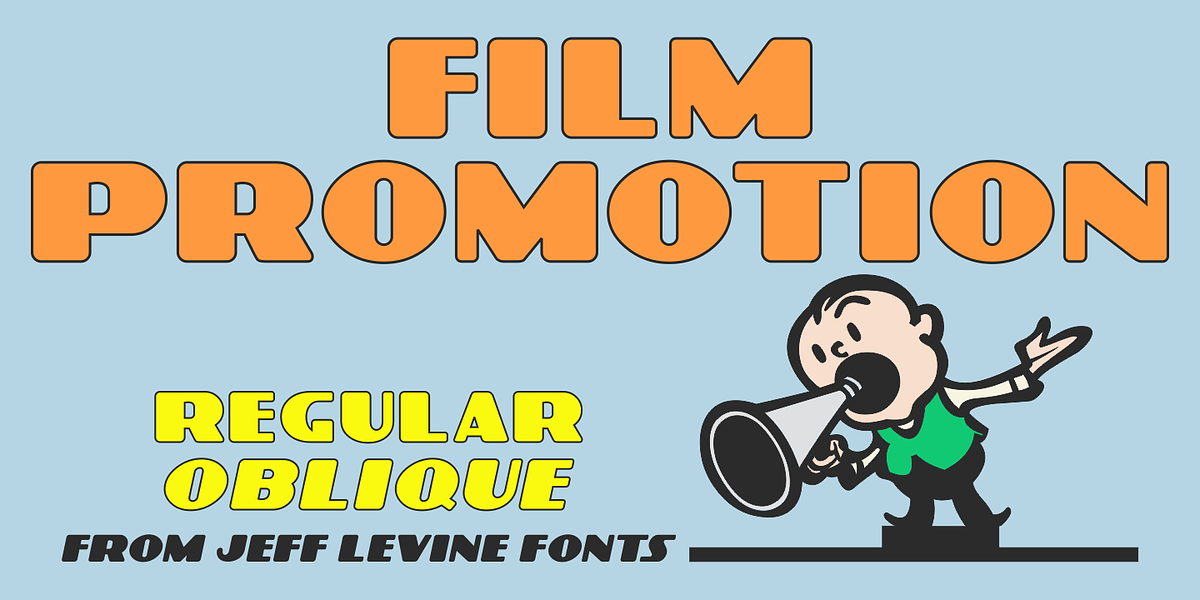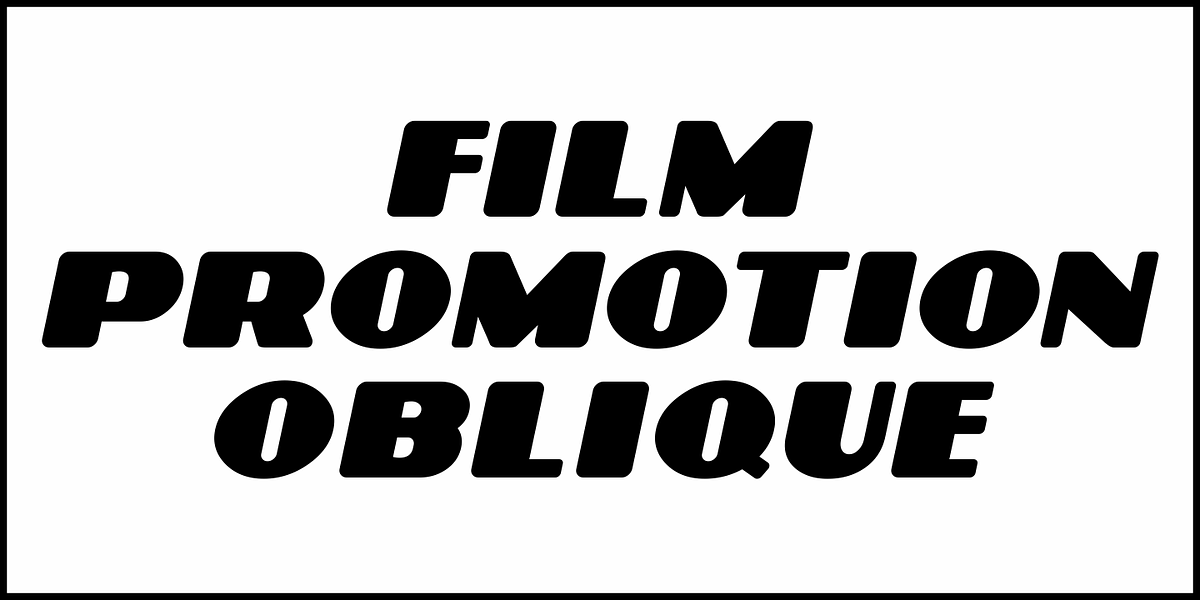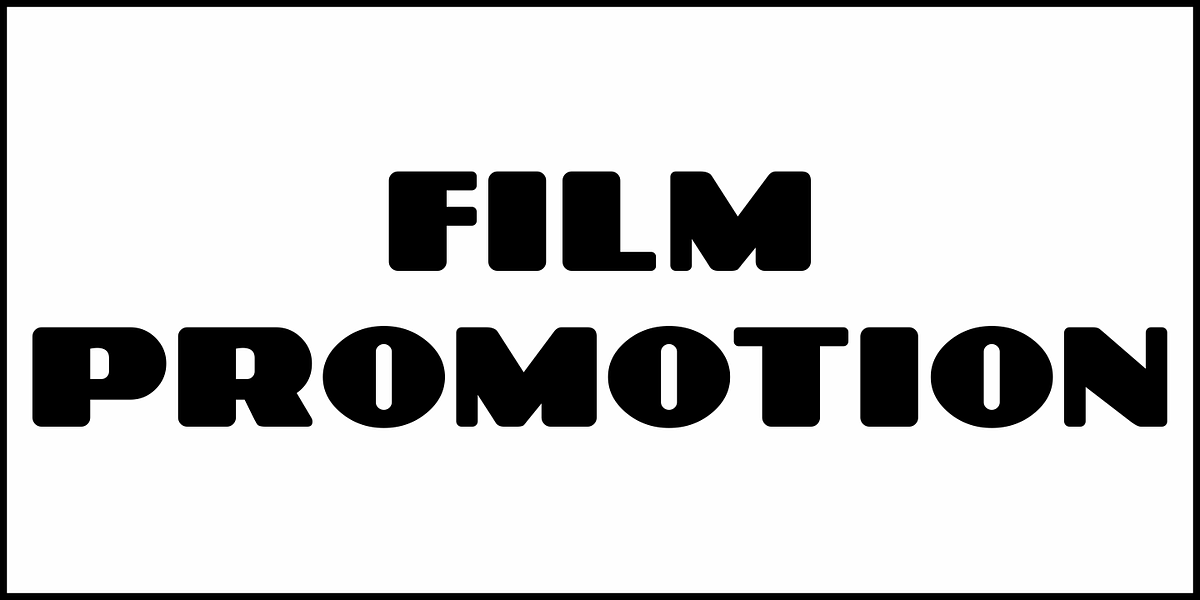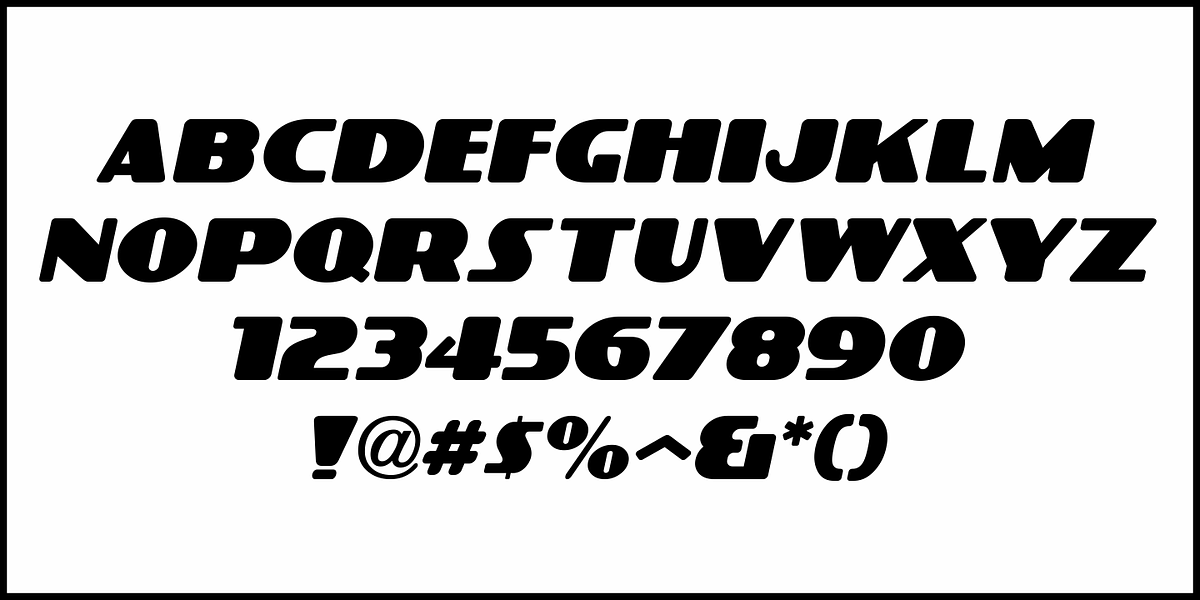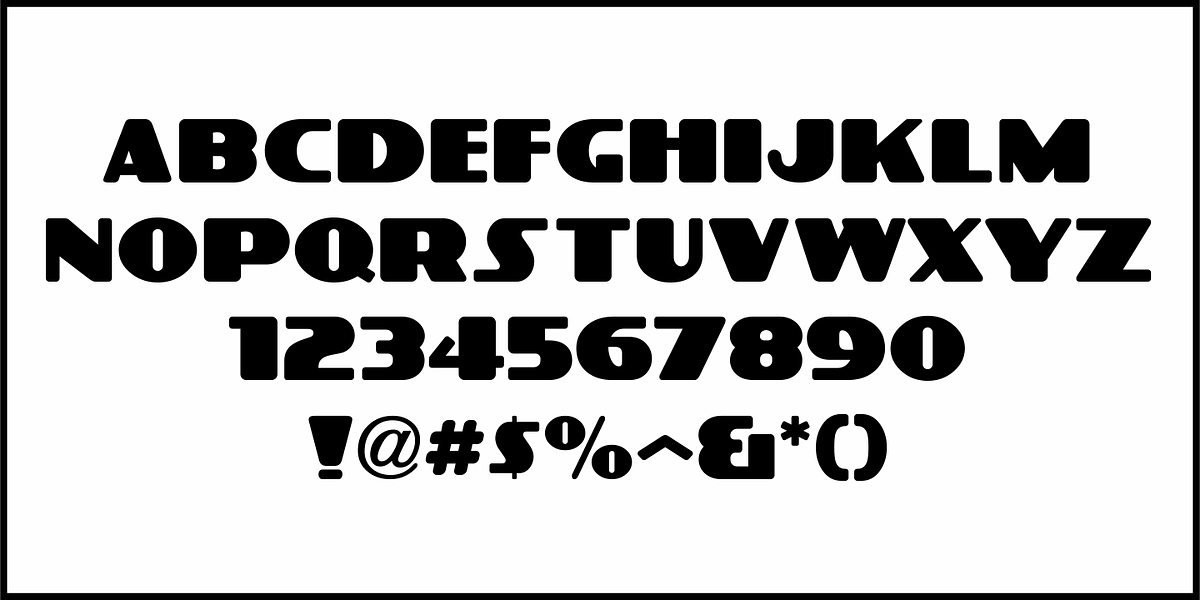
Film Promotion JNL
Hand lettering used in an ad found in the Dec. 9, 1922 issue of Motion Picture News promoting three films from Fox Studios was the basis for Film Promotion JNL, which is available in both regular and oblique versions.
This extra bold sans serif design has rounded corners along with thick and thin strokes foreshadowing the upcoming Art Deco movement in typography of the 1930s and 1940s.